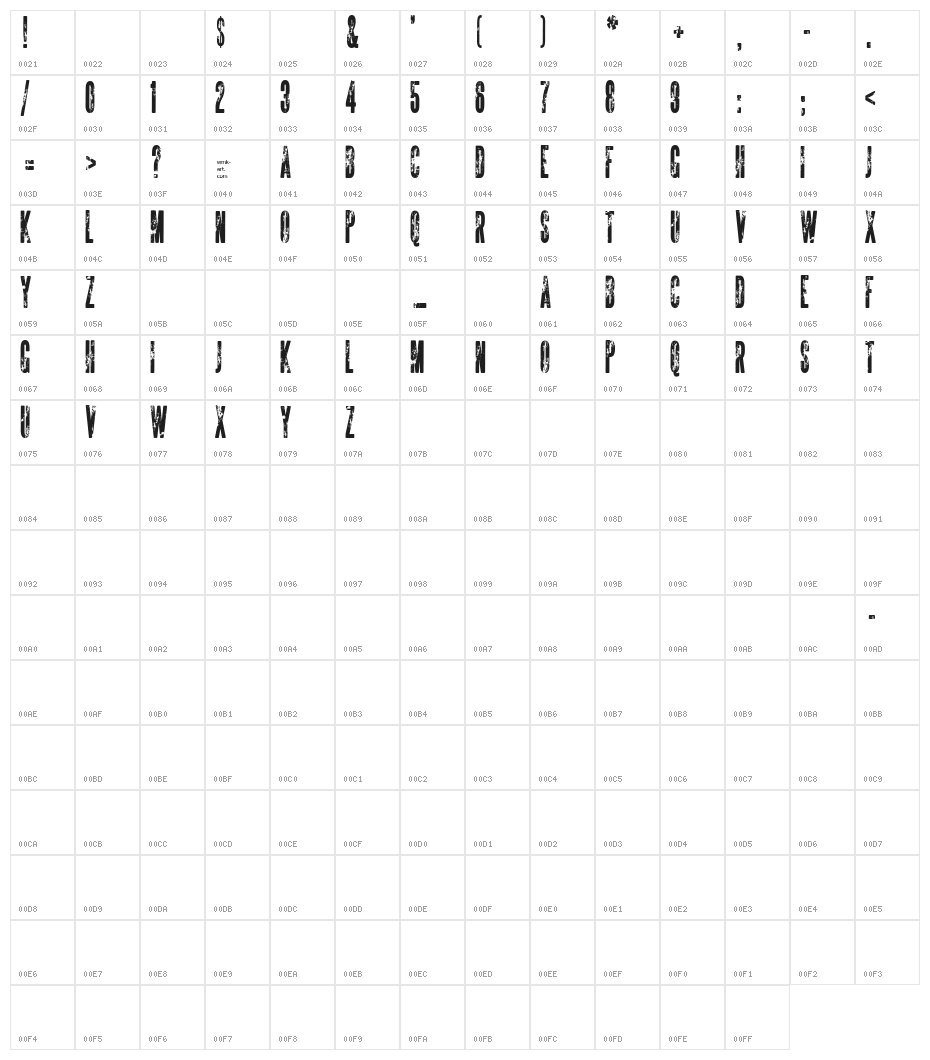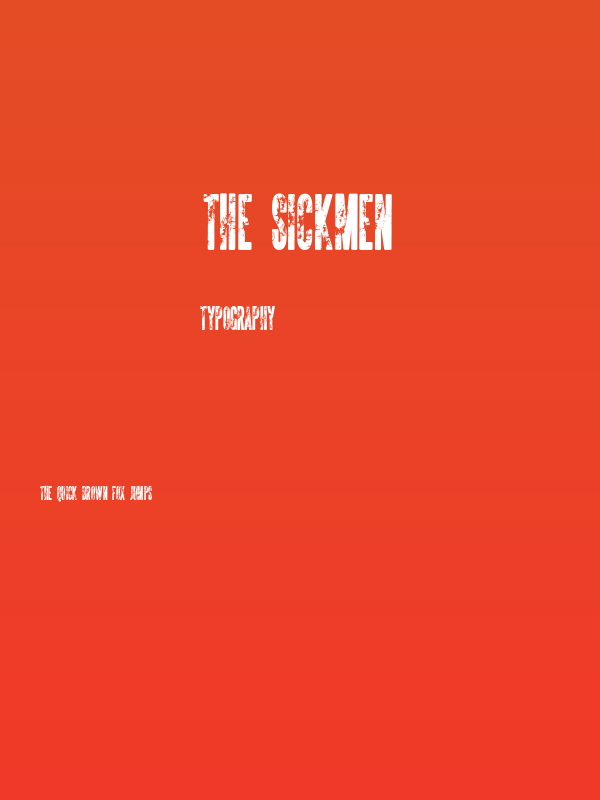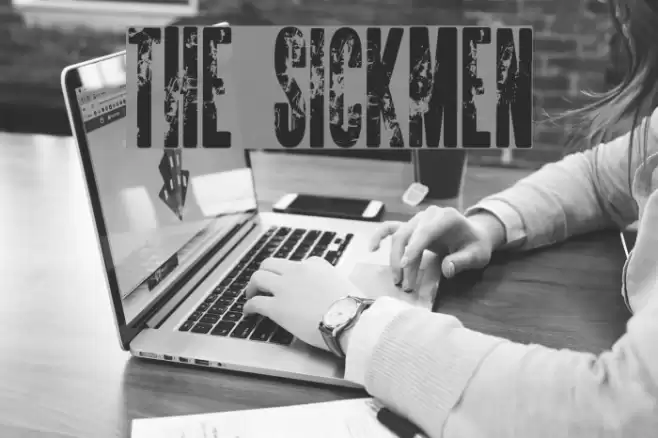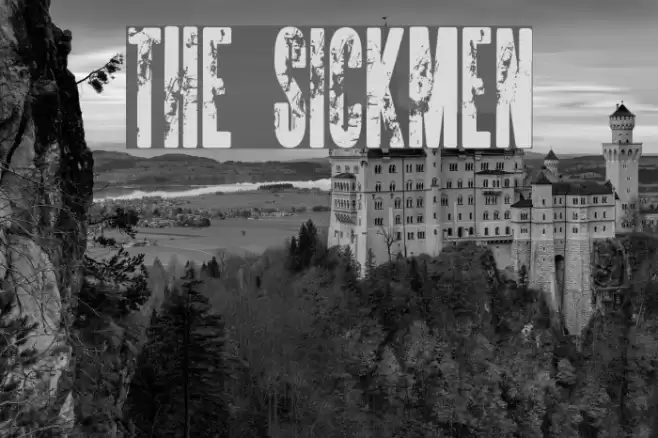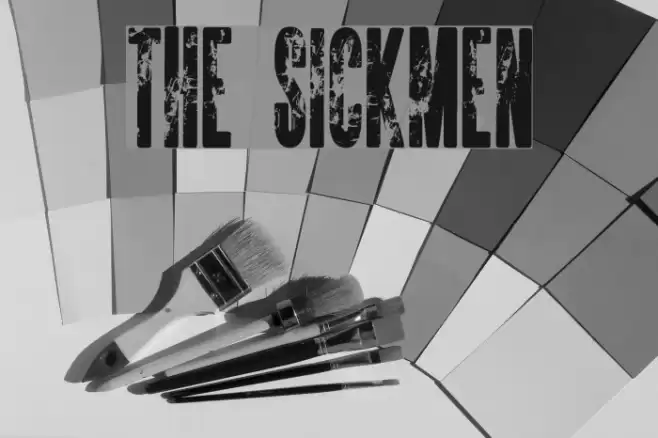
The Sickmen Font
The Sickmen Description
This font exhibits a bold and distressed style, characterized by its heavy, block-like letters that appear weathered and worn. The texture gives it a rugged, grunge aesthetic, making it stand out with a unique, edgy appearance. The uppercase and lowercase letters maintain a consistent width, contributing to a uniform look despite the distressed effect. The numbers and special characters follow the same stylistic approach, ensuring cohesion across all elements. This font's boldness and texture make it ideal for projects that require a strong visual impact.
| Overall Style | Grunge, Edgy |
| Use Case | Headlines, Posters, Branding |
| Proposed Projects | Ideal for music album covers, posters, urban-themed designs, and branding that requires a gritty, impactful look. |